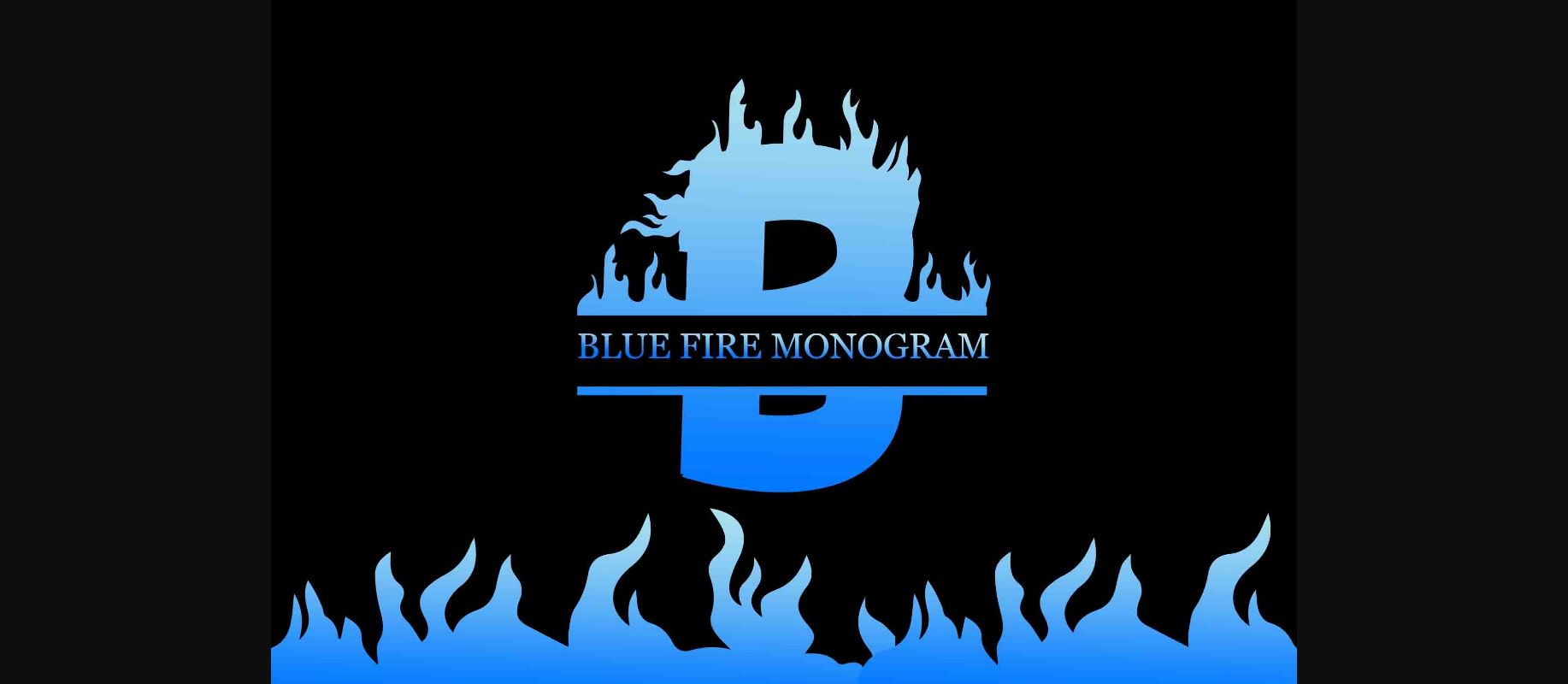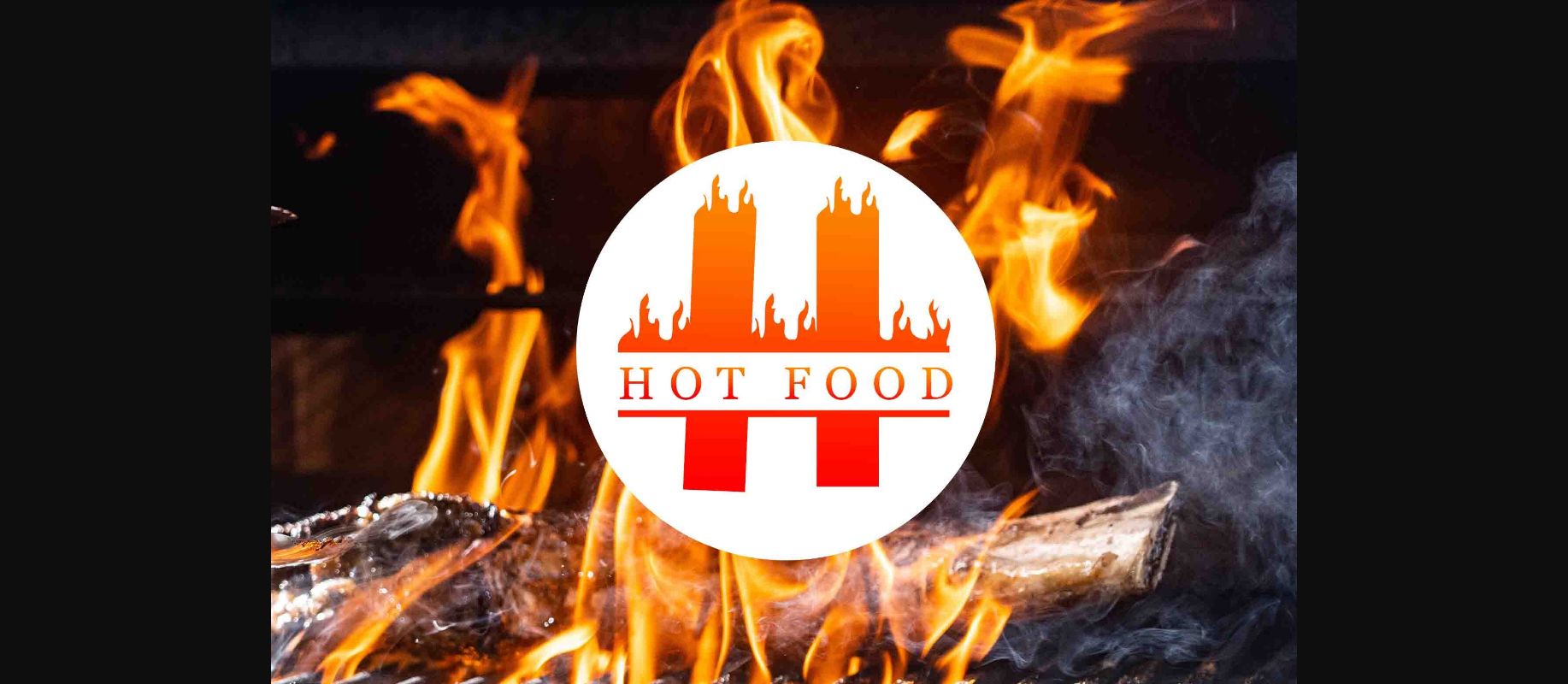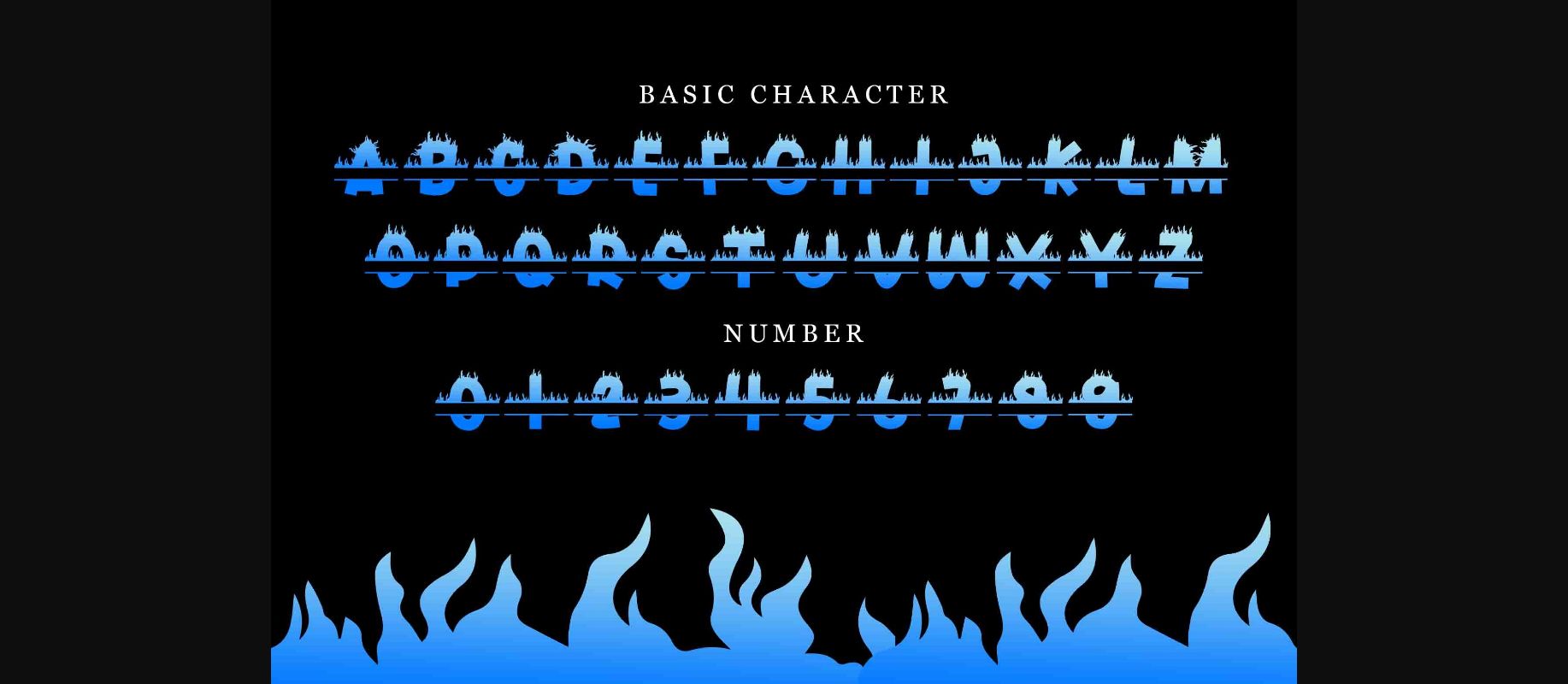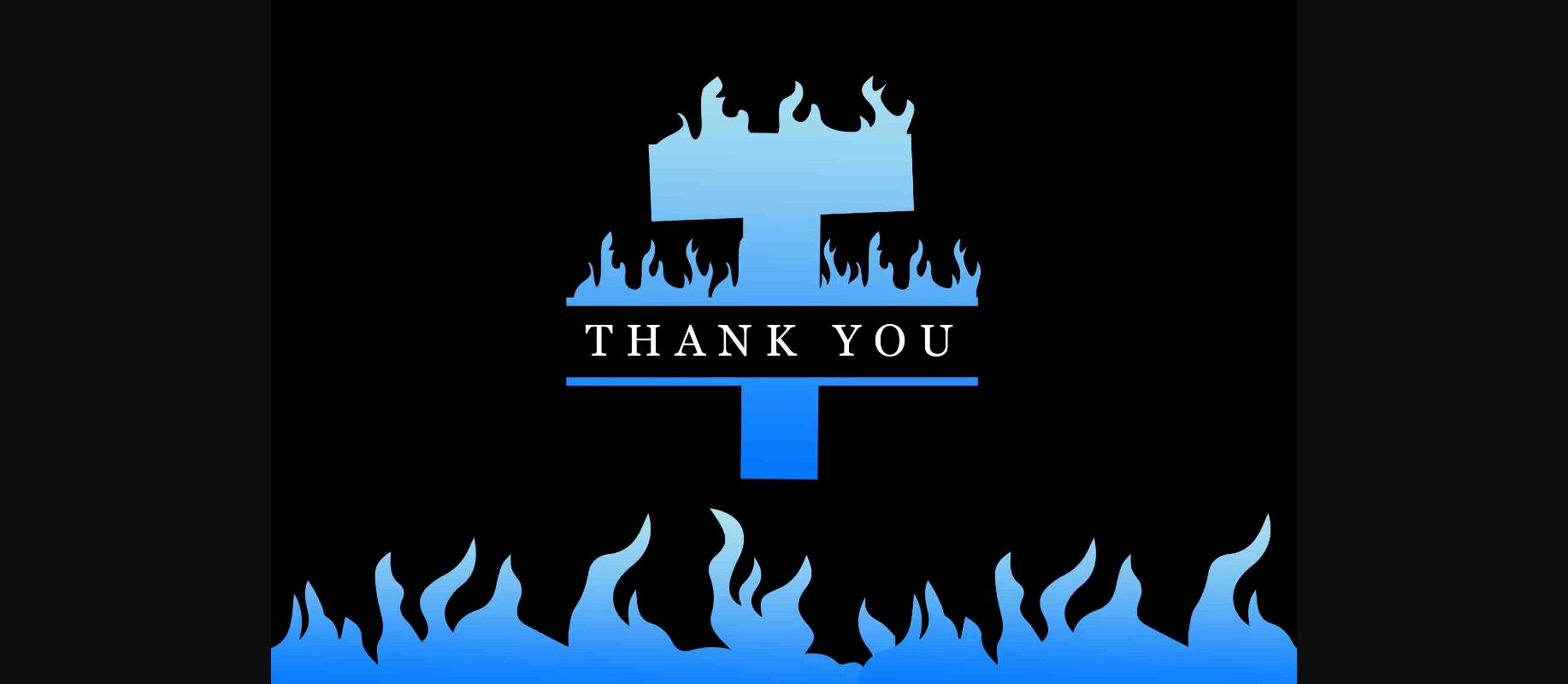
About Blue Fire Monogram Font
Blue fire monogram is a decorative font with a hot feel made by creative hands. This font is suitable for logos for spicy food, crafts, and much more. Create brilliant ideas with this font and become the best work. This font is available in basic characters and numbers.